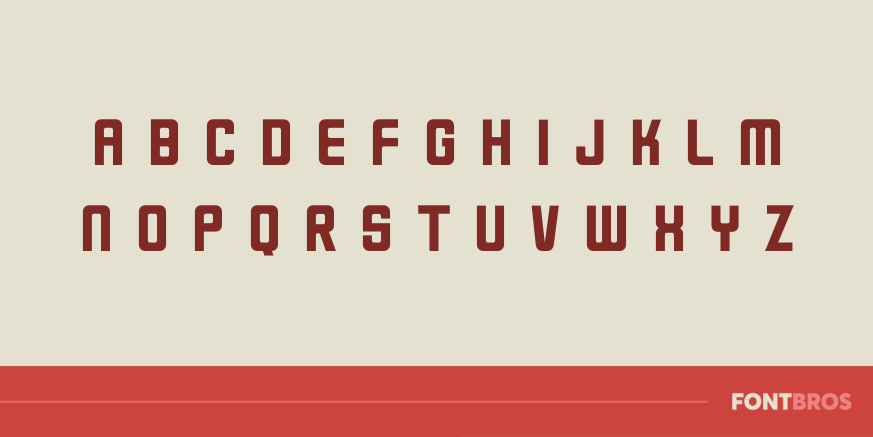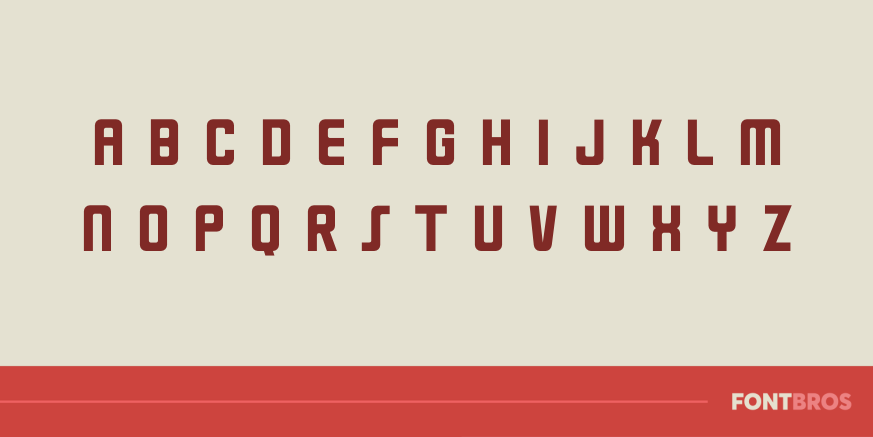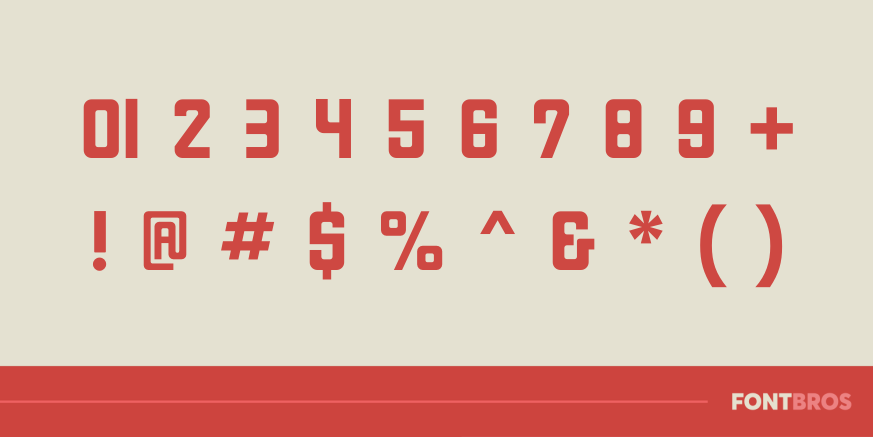
Milwaukee
Font Family by Font Diner
No longer pleased with the font Chicago in my Mac, I wanted something better, something bolder, something authentic! Meet Milwaukee, the genuine article!